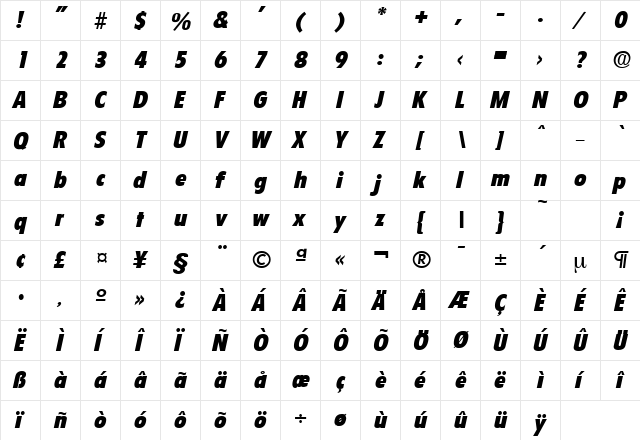
Florida-Serial-Heavy RegularItalic
Design Context for Florida-Serial-Heavy Typeface
Florida-Serial-Heavy is a composed and adaptable typeface that performs quietly and consistently across a wide range of design contexts. Its italic angle brings a sense of urgency and motion to the letterforms.
Pro Tip: Try Florida-Serial-Heavy for annotation and caption copy alongside an upright companion — the contrast in angle creates a dynamic but ordered typographic system.